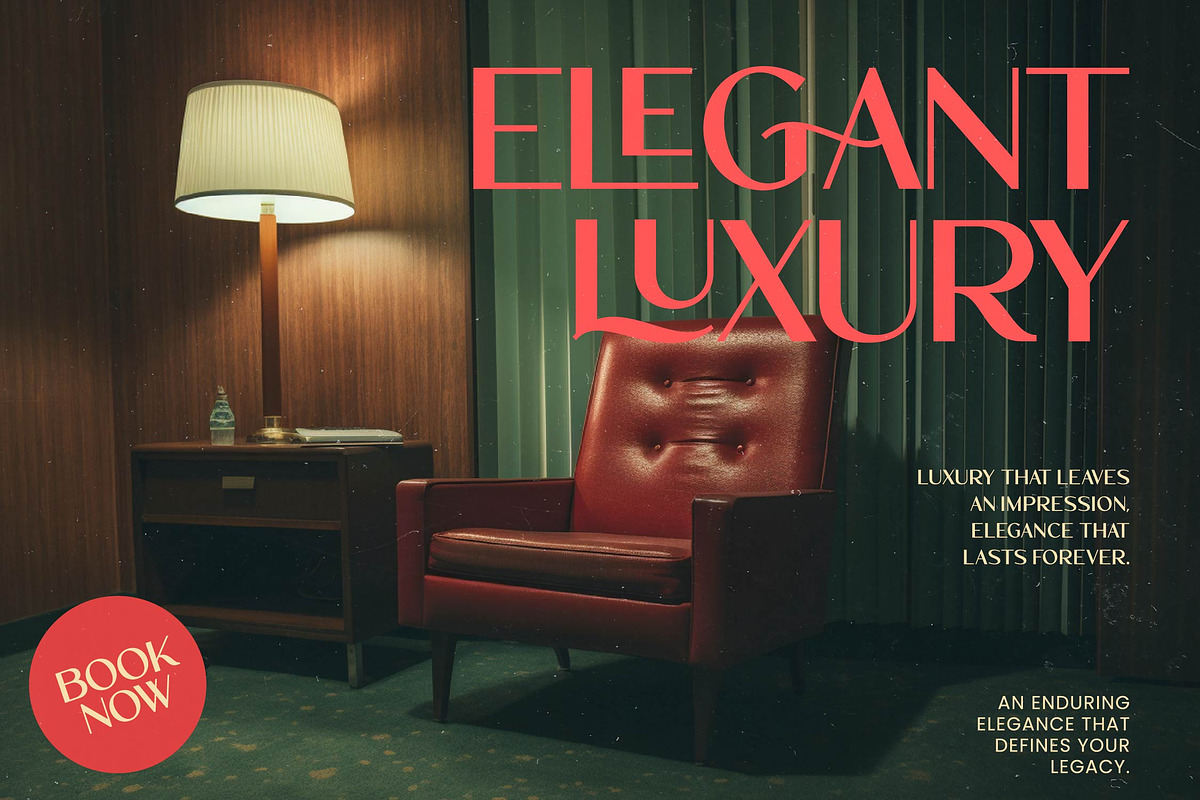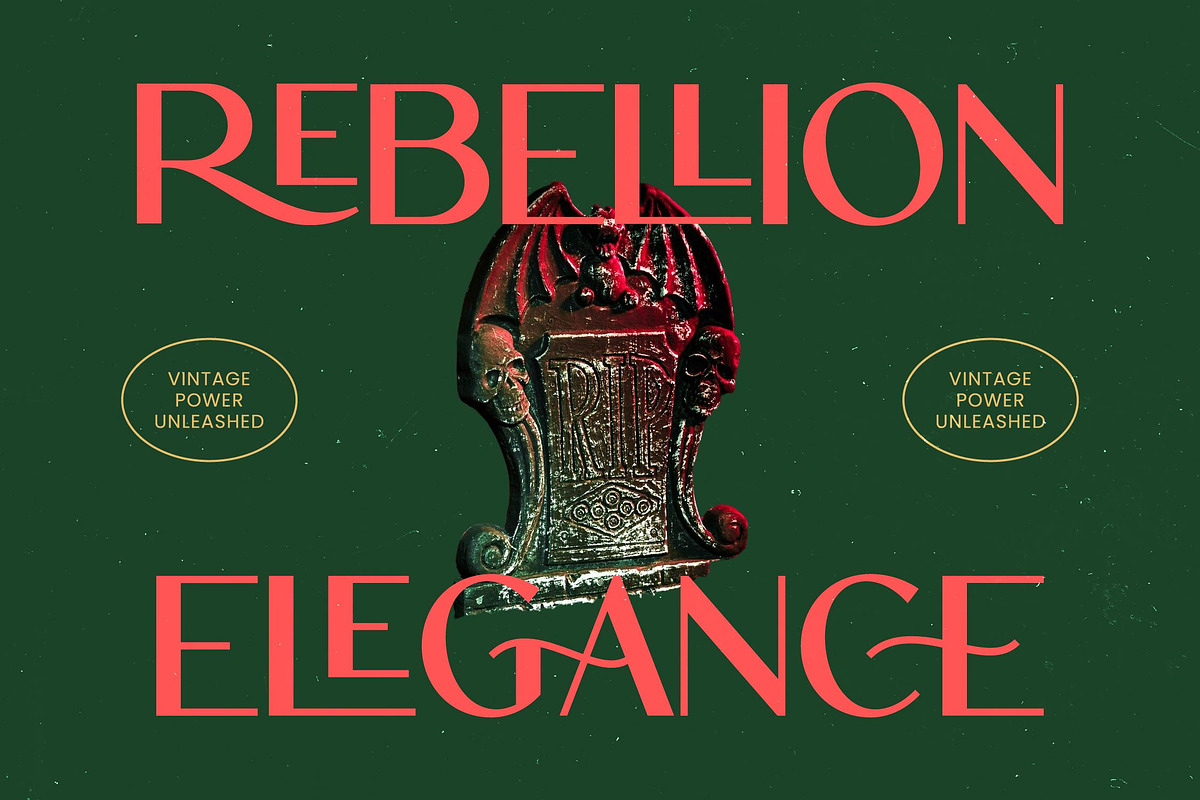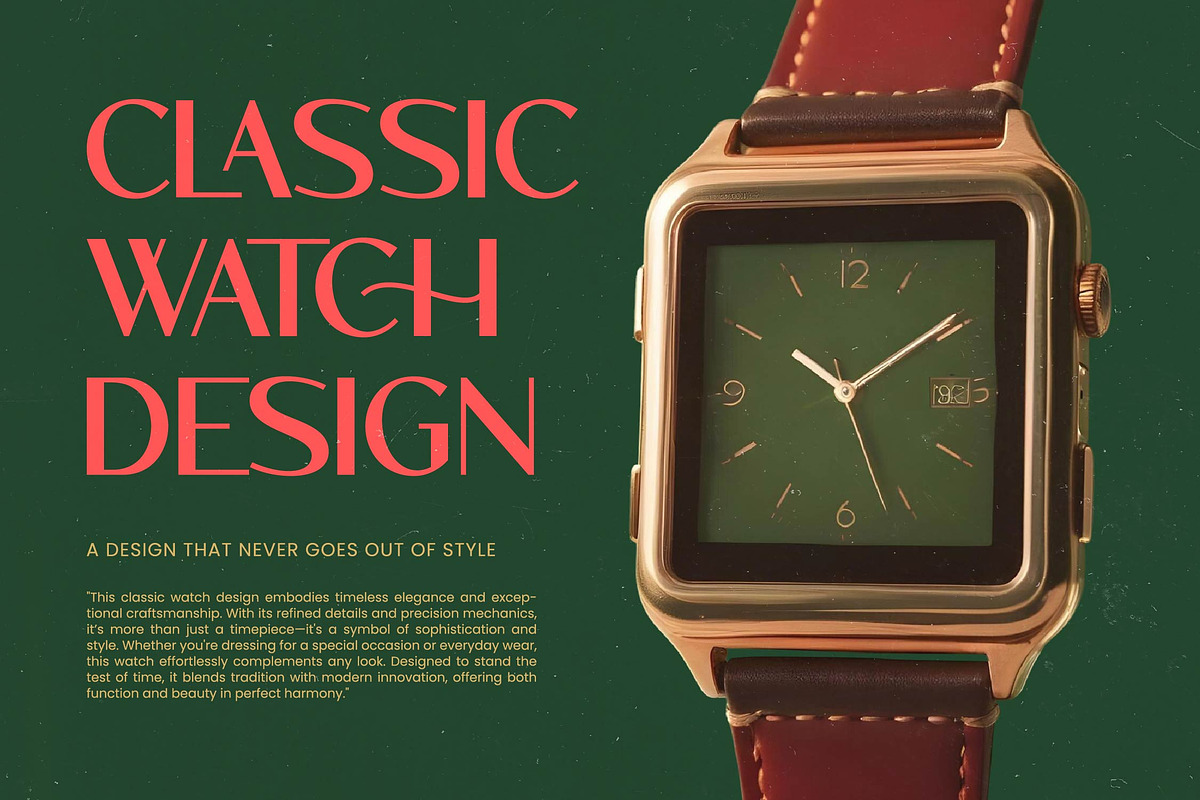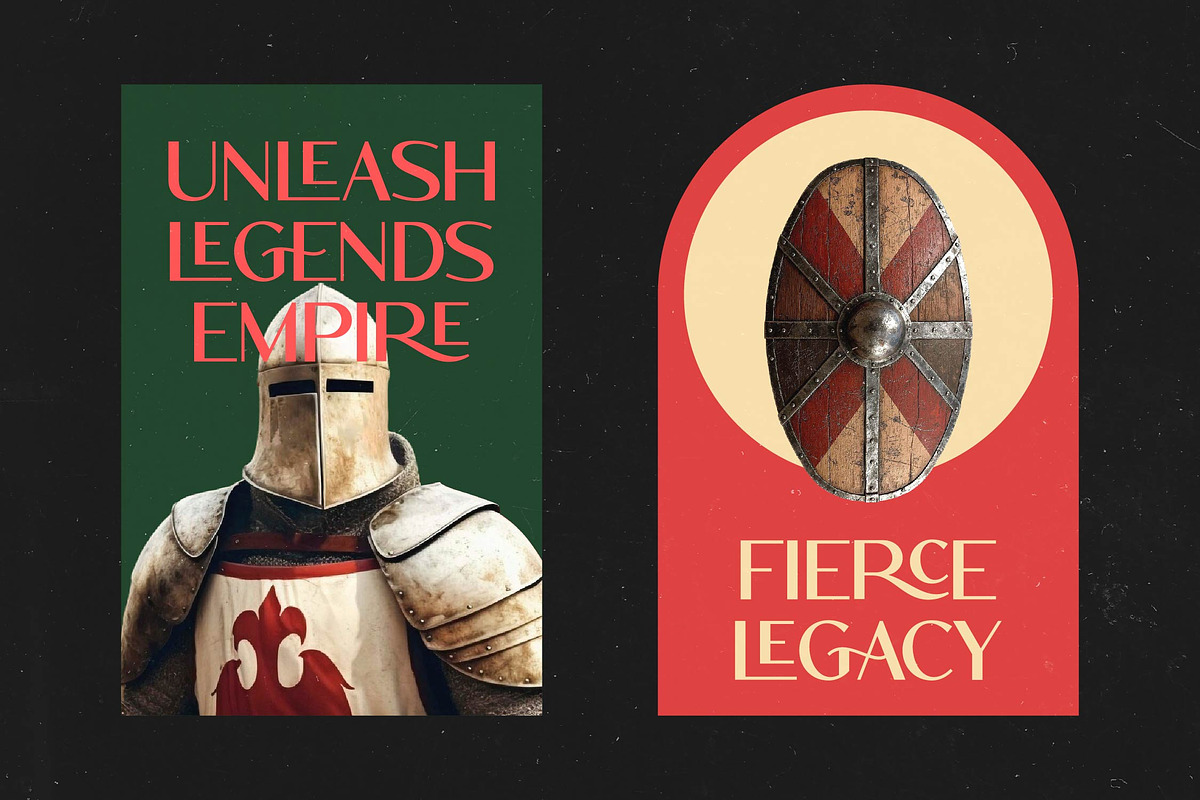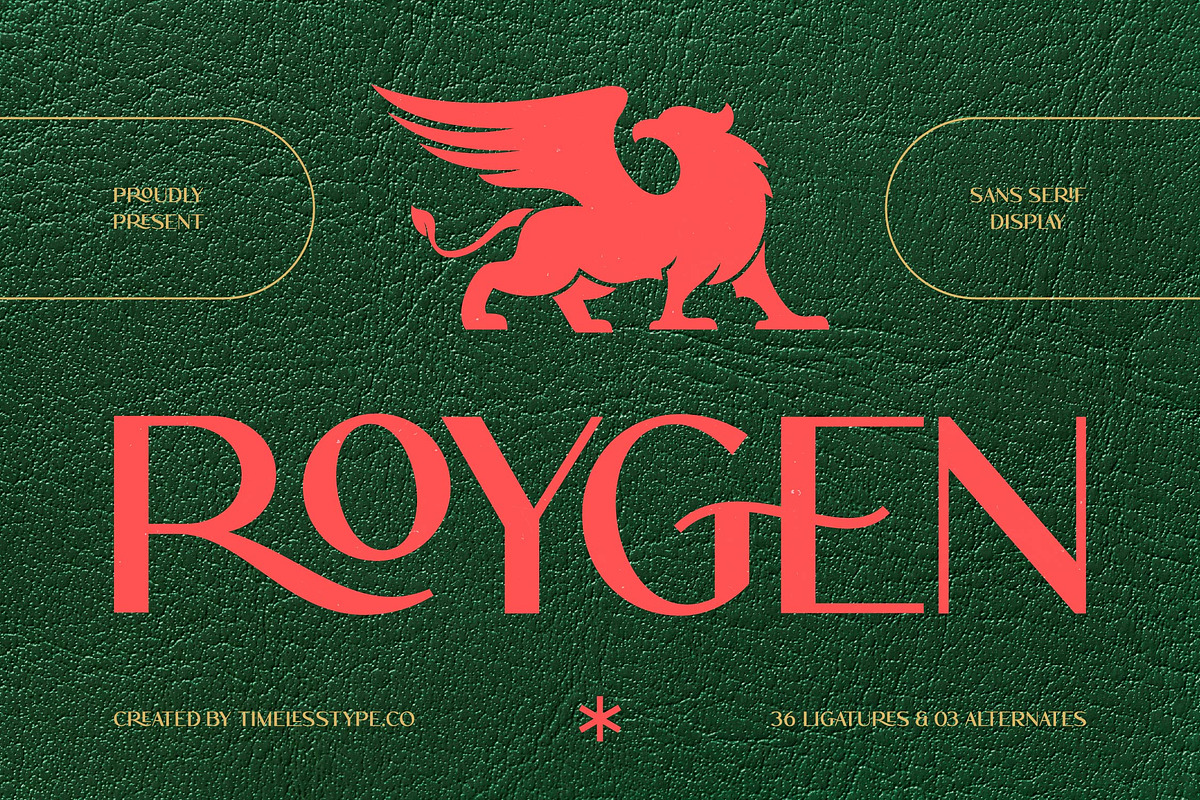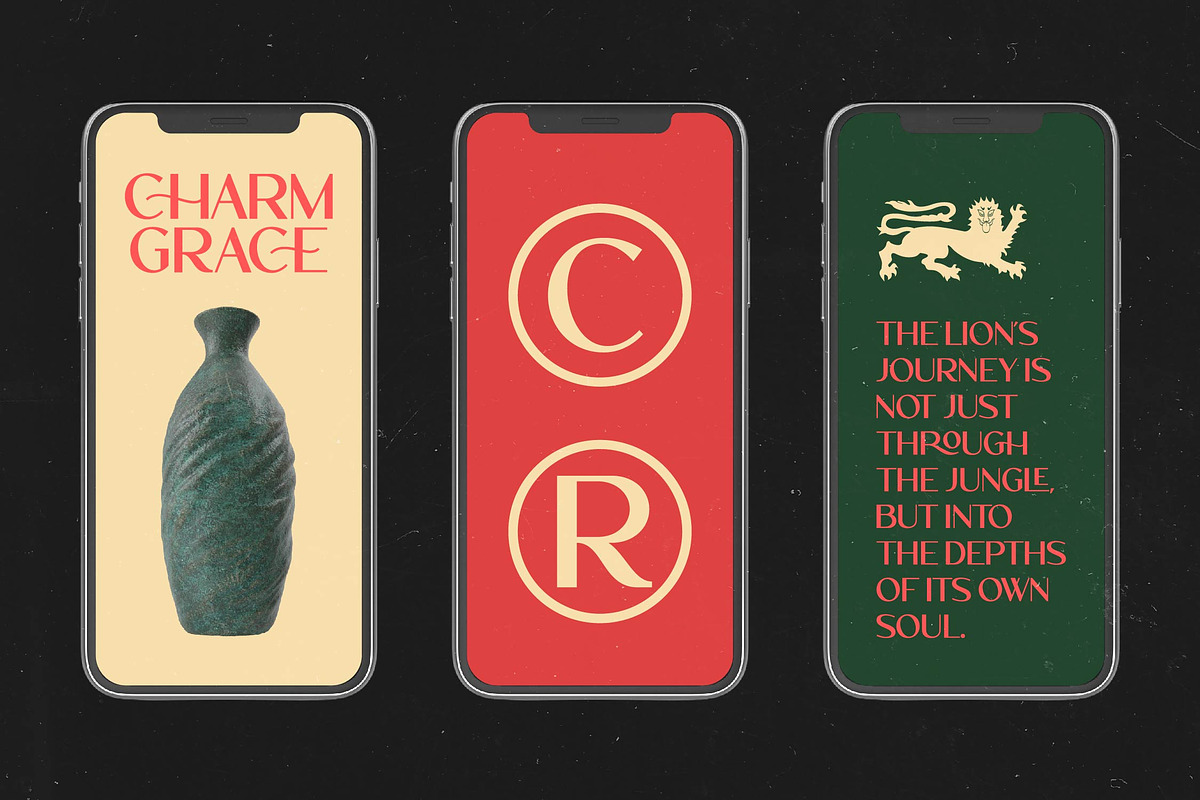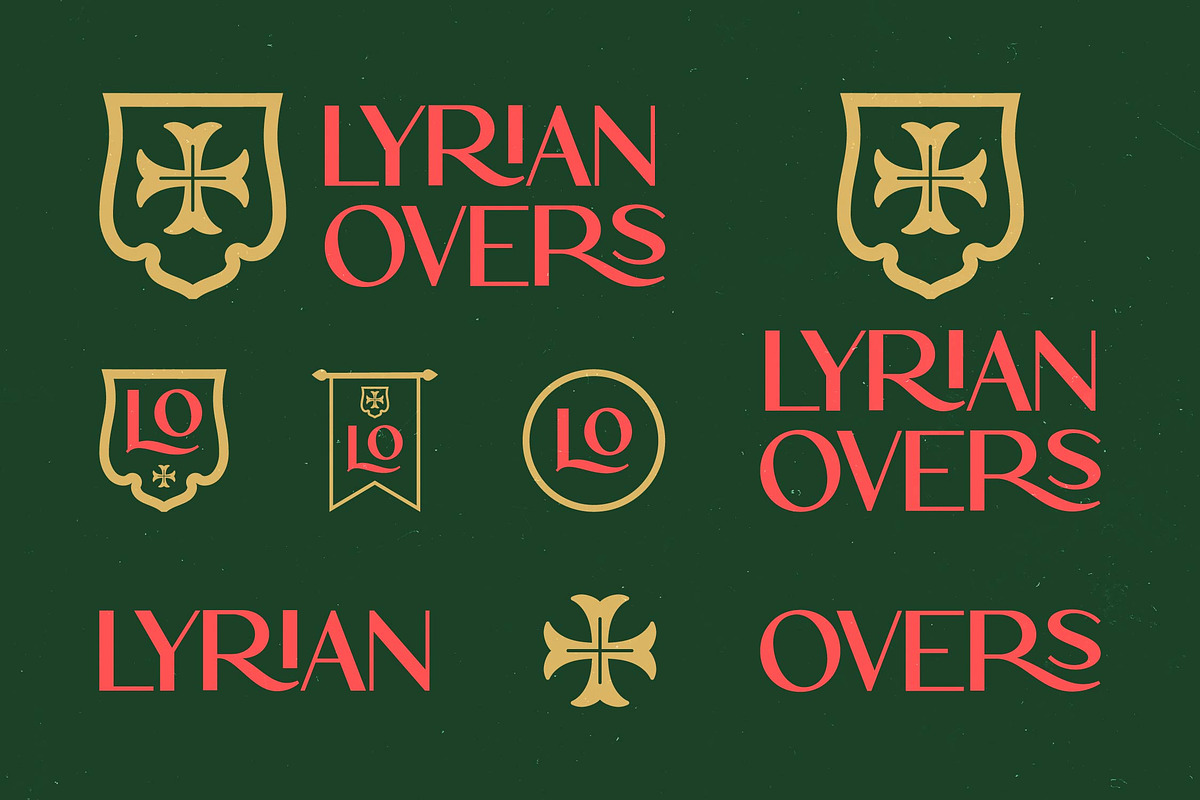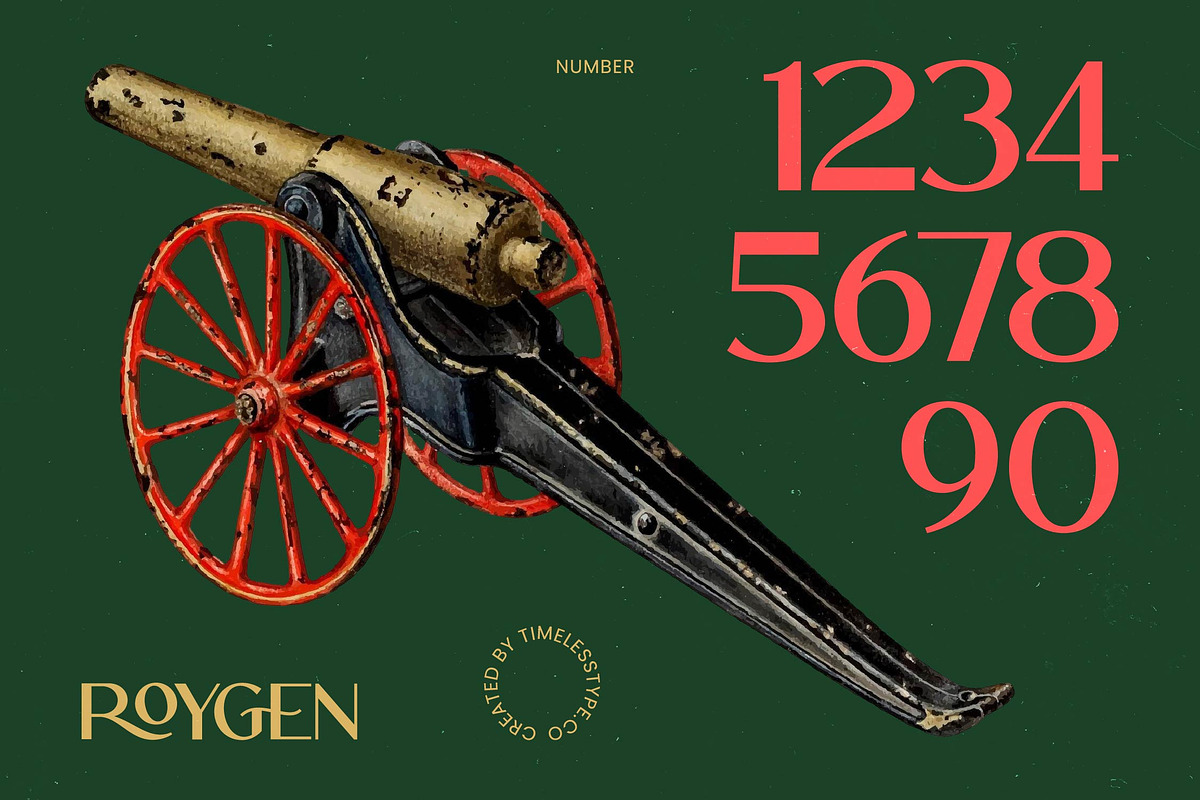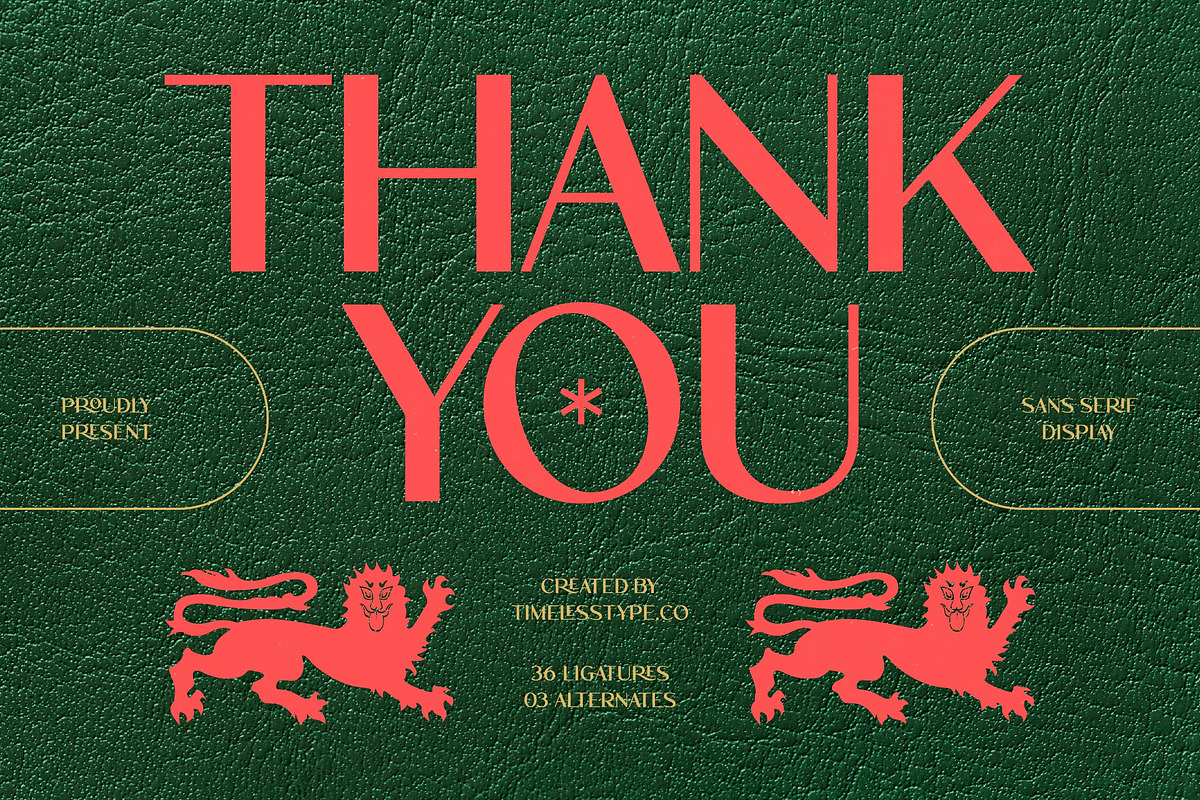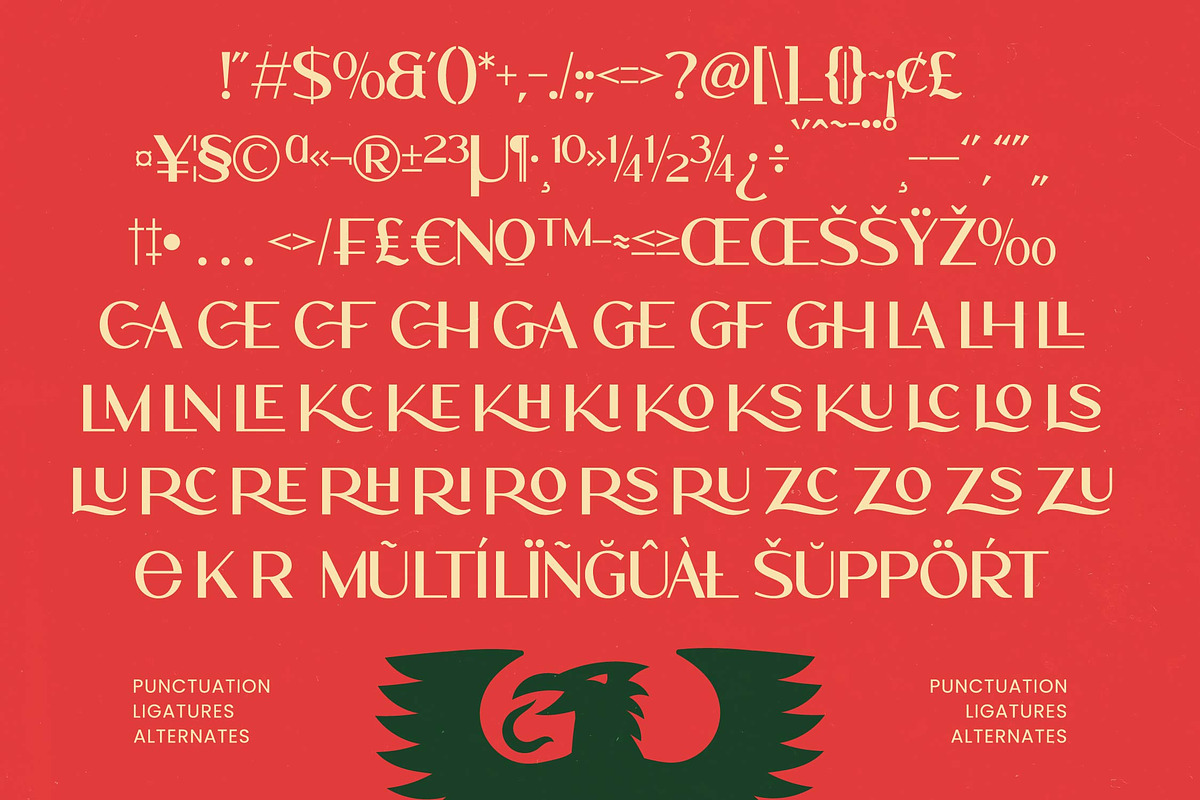
Roygen Elegant Sans Serif Display
Roygen – Elegant Sans Serif Display , Elevate your visual identity with a typeface that embodies sophisticated power and artistic precision. Roygen – Elegant Sans Serif Display is a masterclass in modern typography, blending high-contrast strokes with a sleek, contemporary aesthetic. This typeface commands attention through its unique balance of sharp angles and flowing curves, making it the ultimate choice for designers seeking a premium look and feel.
Discover the perfect typographic partner for high-end creative projects that demand a lasting impression. Roygen – Elegant Sans Serif Display is exceptionally suited for luxury branding, upscale packaging, and high-fashion editorial design. Its authoritative yet graceful presence makes it perfect for logo design, magazine headers, and exclusive invitations. Whether used in a minimalist layout or a complex composition, this font delivers an unmatched level of refined elegance.
Expand your creative reach with a versatile tool designed for the modern, interconnected world. With its extensive multilingual support, Roygen – Elegant Sans Serif Display adapts seamlessly across global markets, making it incredibly versatile for international projects. Featuring 36 unique ligatures and custom alternates, this typeface provides endless opportunities for creative customization. It ensures your brand message remains consistent and impactful, regardless of the linguistic or geographic context.
Invest in a timeless asset that transcends fleeting trends to provide enduring value to your design toolkit. Choosing Roygen – Elegant Sans Serif Display means opting for a professional-grade typeface that guarantees visual excellence across all platforms. Its crisp legibility and artistic flair allow it to stand out in a crowded marketplace, securing its place as an essential component for any sophisticated design project. Transform your concepts into iconic visual statements with this elite display font.
Numerals
Punctuations (OpenType Standard)
Accents (Multilingual Characters)
Ligatures and Alternative Style Stylistic Set